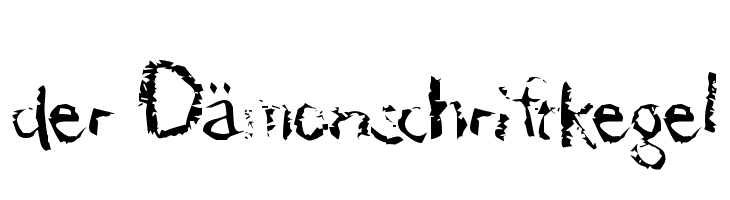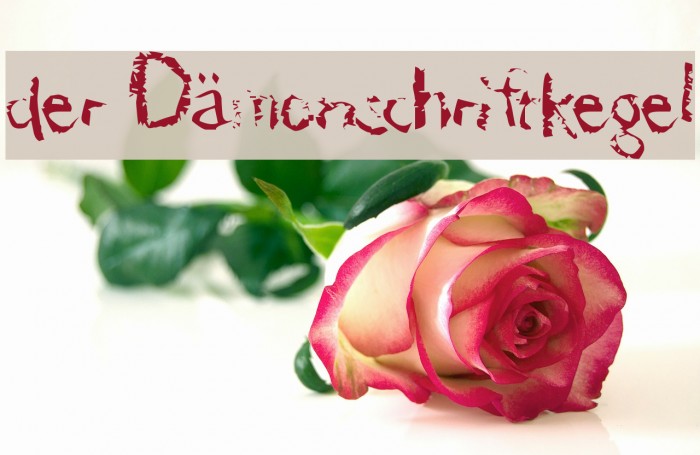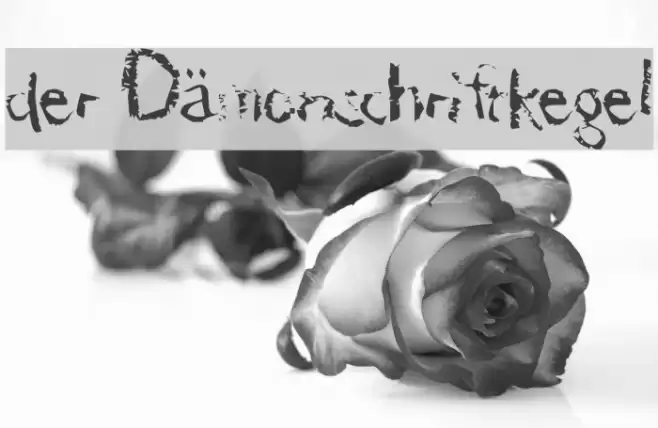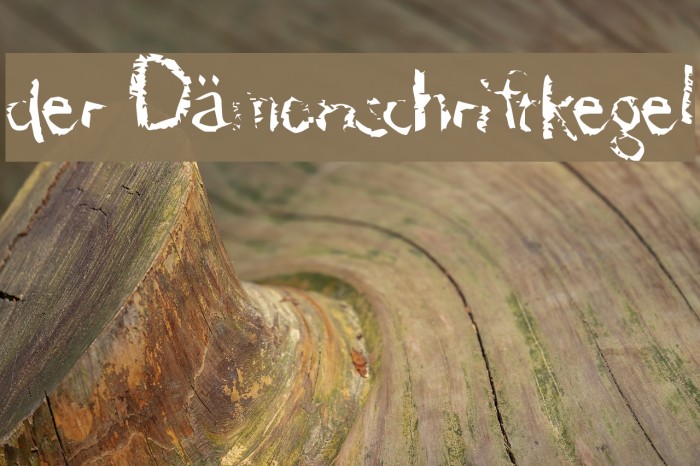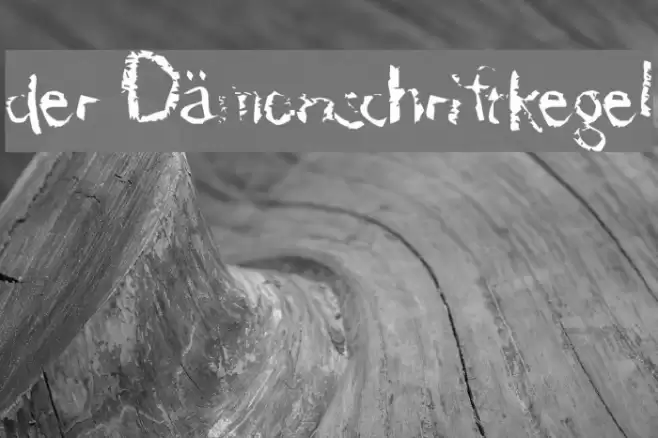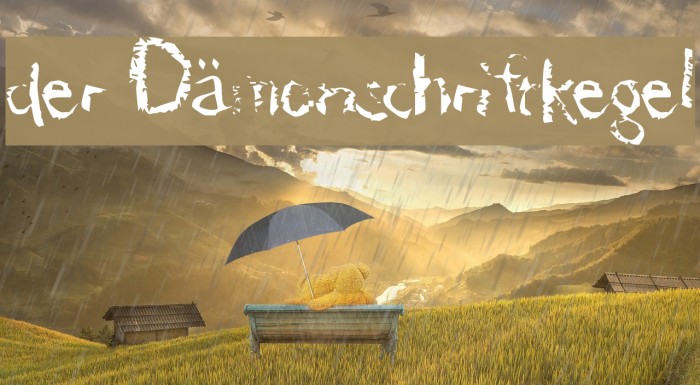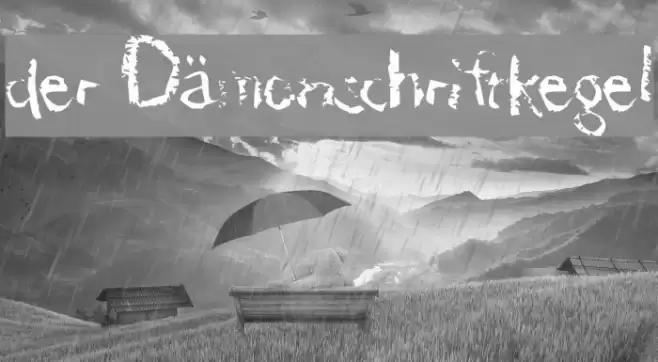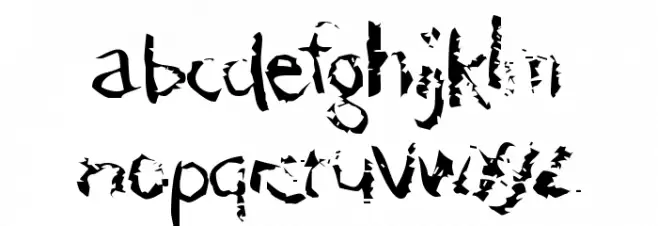
der Dämonschriftkegel Font
der Dämonschriftkegel Description
This font features a highly distressed and grungy aesthetic, characterized by jagged edges and irregular shapes. The uppercase and lowercase letters exhibit a chaotic yet artistic style, with each character appearing as if it has been torn or eroded. The numbers and special characters maintain this rugged appearance, adding to the overall edgy feel. The font's unique design makes it stand out, offering a bold statement for any creative project. Its unconventional form is suitable for designs that aim to convey a sense of rebellion or nonconformity.
| Overall Style | Grunge, Artistic, Edgy |
| Proposed Projects | Ideal for album covers, posters, streetwear branding, or any project seeking an edgy, rebellious look. |